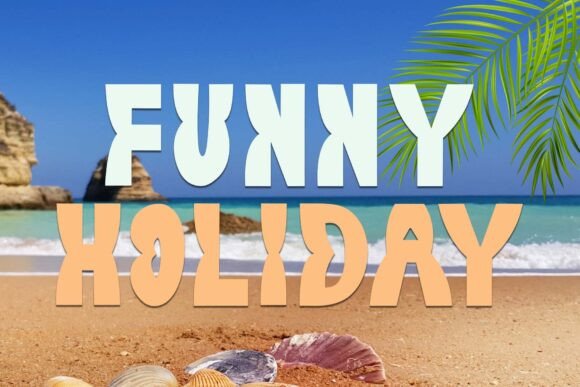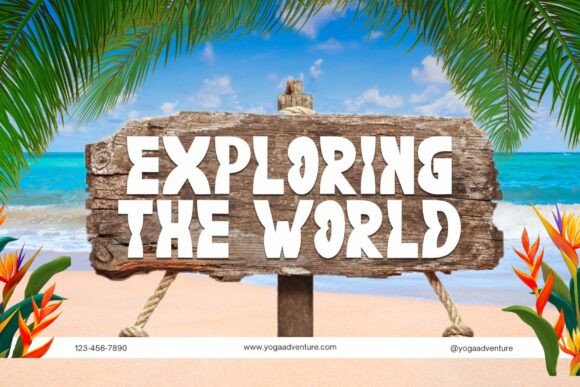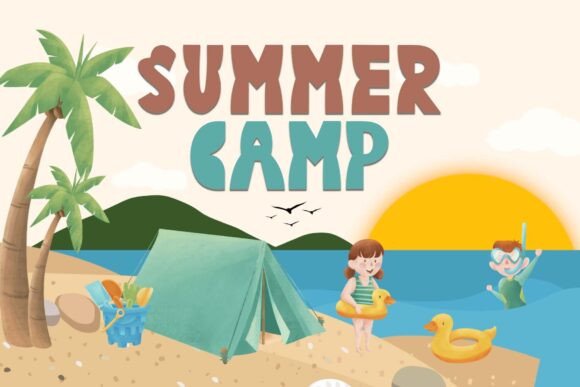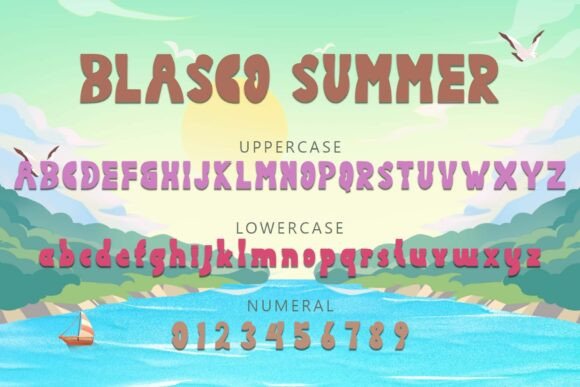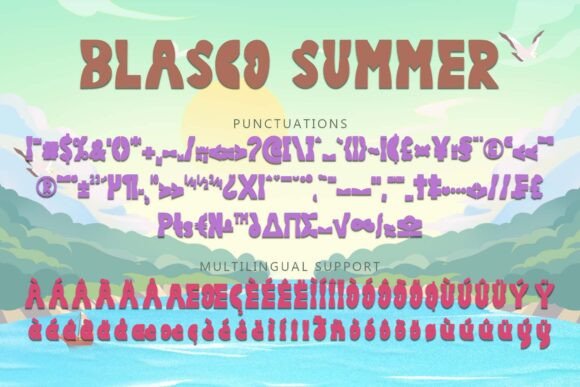
Introducing Blasco Summer Font: Elevate Your Designs with Elegance and Versatility
Are you on the hunt for a font that exudes elegance, sophistication, and a touch of playfulness? Look no further than the Blasco Summer Font. This stunning display font is perfect for designers and crafters seeking to add a unique flair to their projects. In this article, we’ll dive into the features, benefits, and uses of the Blasco Summer Font, and explore how it can elevate your designs to the next level.
What is Blasco Summer Font?
Blasco Summer is a one-of-a-kind display font that boasts an elegant and refined aesthetic. This beautiful font comes equipped with a comprehensive range of characters, including uppercase and lowercase letters, numerals, punctuations, and multilingual support. Its versatility makes it an excellent choice for a wide range of design applications.
Key Features of Blasco Summer Font
- Comprehensive Character Set: The Blasco Summer Font features a complete character set, including uppercase and lowercase letters, numerals, punctuations, and multilingual support.
- Elegant and Refined Aesthetic: The font’s unique design exudes elegance and sophistication, making it perfect for high-end designs.
- Display Font: Blasco Summer is a display font, making it ideal for headlines, titles, and other prominent design elements.
- Multilingual Support: The font supports multiple languages, making it a great choice for designers working on international projects.
Uses for Blasco Summer Font
The Blasco Summer Font is incredibly versatile and can be used for a wide range of design projects, including:
- Banners: Create eye-catching banners for events, promotions, or sales with the Blasco Summer Font.
- Posters: Design stunning posters for movies, concerts, or theater productions.
- Prints: Use the font for business cards, brochures, or flyers to add a touch of elegance.
- Branding: Establish a strong brand identity with the Blasco Summer Font.
- Stickers: Create custom stickers for laptops, water bottles, or any other promotional item.
- Summer and Holiday Designs: Perfect for summer-themed designs, holiday promotions, or vacation-related projects.
- Camping and Outdoor Designs: Use the font for camping, hiking, or outdoor-themed designs.
Benefits of Using Blasco Summer Font
The Blasco Summer Font offers several benefits to designers and crafters, including:
- Unique and Eye-Catching: The font’s elegant design ensures your designs stand out from the crowd.
- Time-Saving: With its comprehensive character set and multilingual support, you can work efficiently on your designs.
- Versatile: The font’s versatility makes it suitable for various design applications.
- High-Quality: The Blasco Summer Font is designed with high-quality and precision, ensuring a professional finish.
Tips for Using Blasco Summer Font
To get the most out of the Blasco Summer Font, consider the following tips:
- Pair with Other Fonts: Combine the Blasco Summer Font with other fonts to create a unique and visually appealing design.
- Experiment with Colors: Try out different color schemes to find the perfect match for your design.
- Adjust Font Size: Experiment with different font sizes to create visual hierarchy and emphasis.